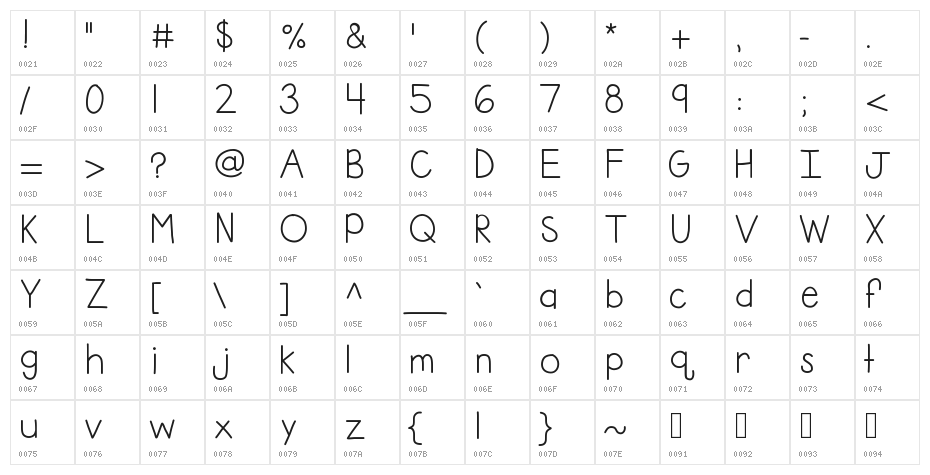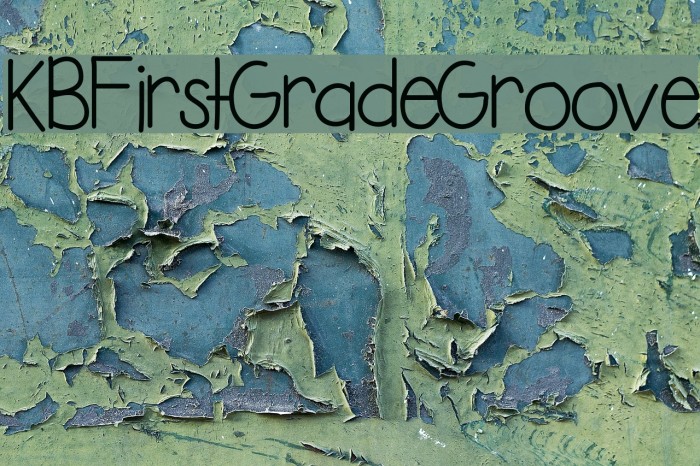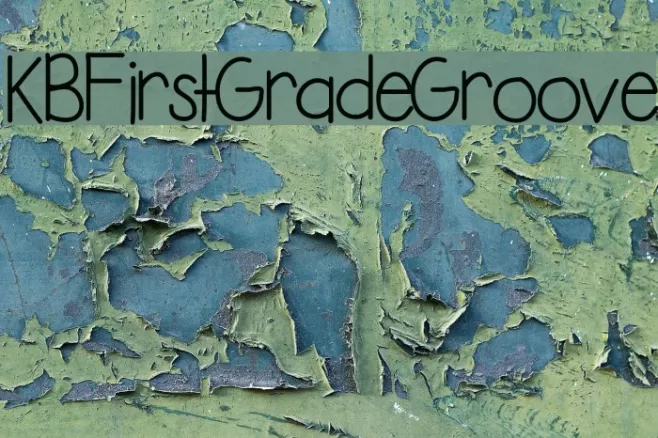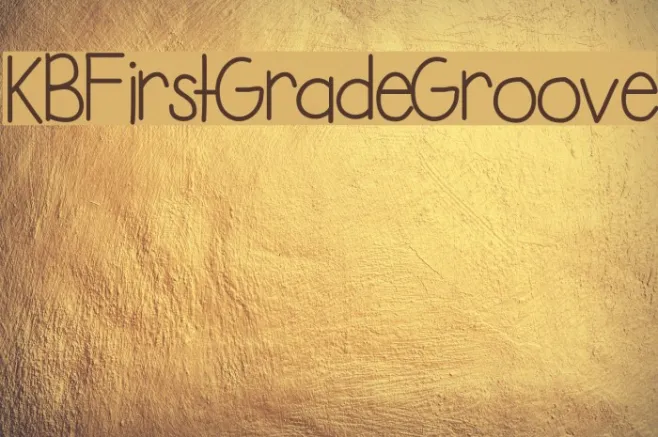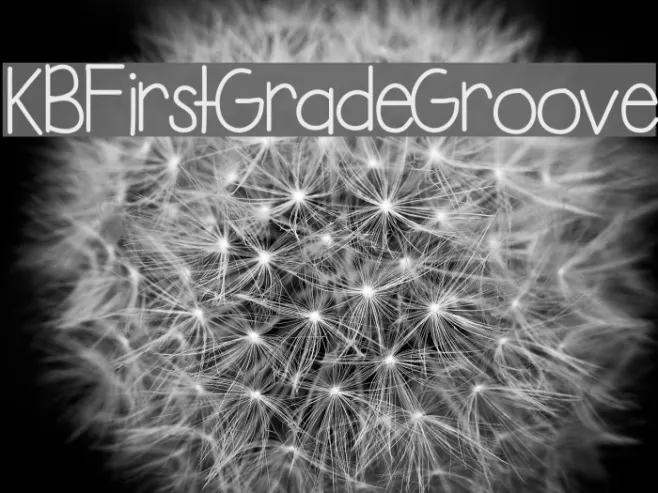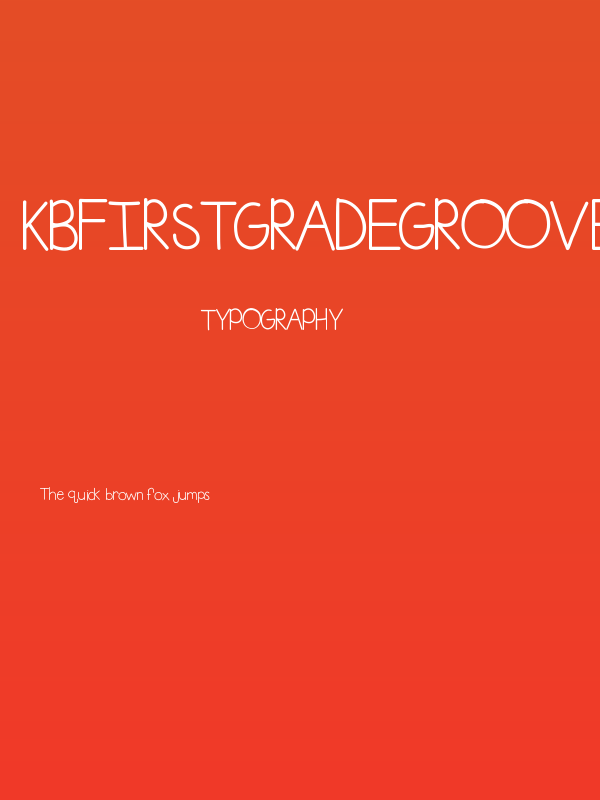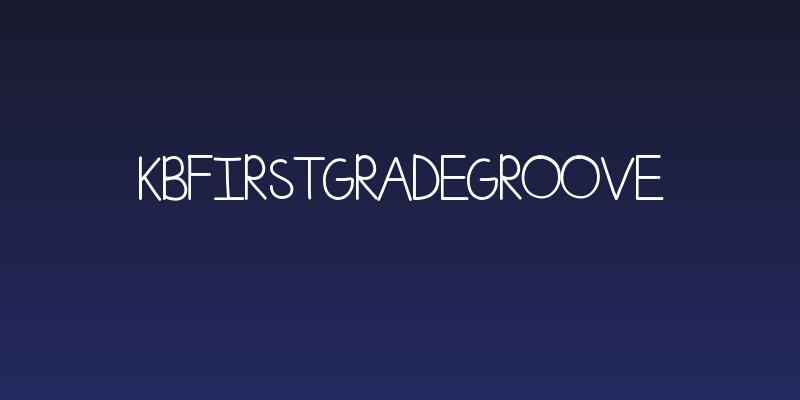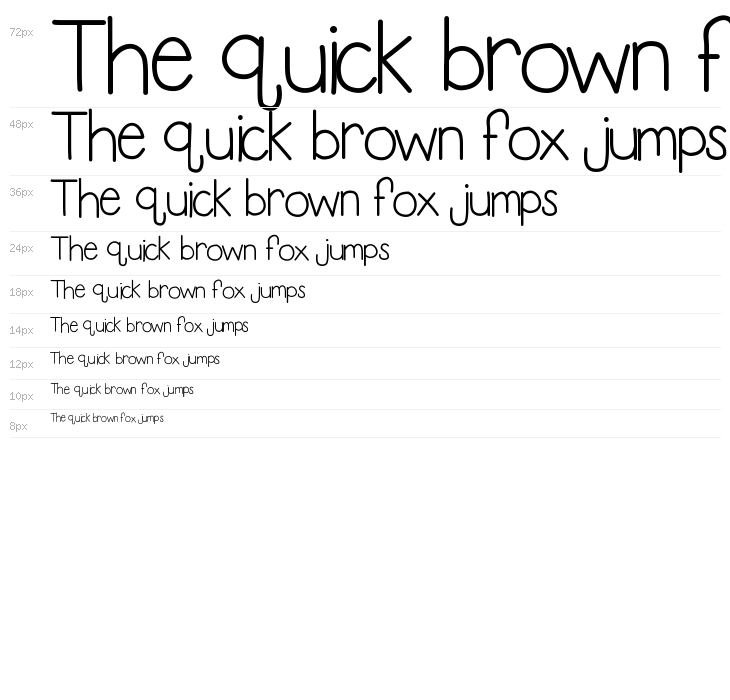
KBFirstGradeGroove Font
KBFirstGradeGroove Description
This playful and whimsical font features rounded, smooth lines that give it a friendly and approachable appearance. The characters are evenly spaced with a consistent stroke width, making it easy to read. Its simplicity and charm make it ideal for educational materials or children's projects. The font includes a full set of uppercase and lowercase letters, numbers, and a variety of special characters, ensuring versatility in its application. Its clean design is both modern and timeless, suitable for a range of creative uses.
| Use Case | Headlines, Educational materials, Children's books |
| Proposed Projects | Ideal for children's books, educational materials, playful branding, and creative projects. |